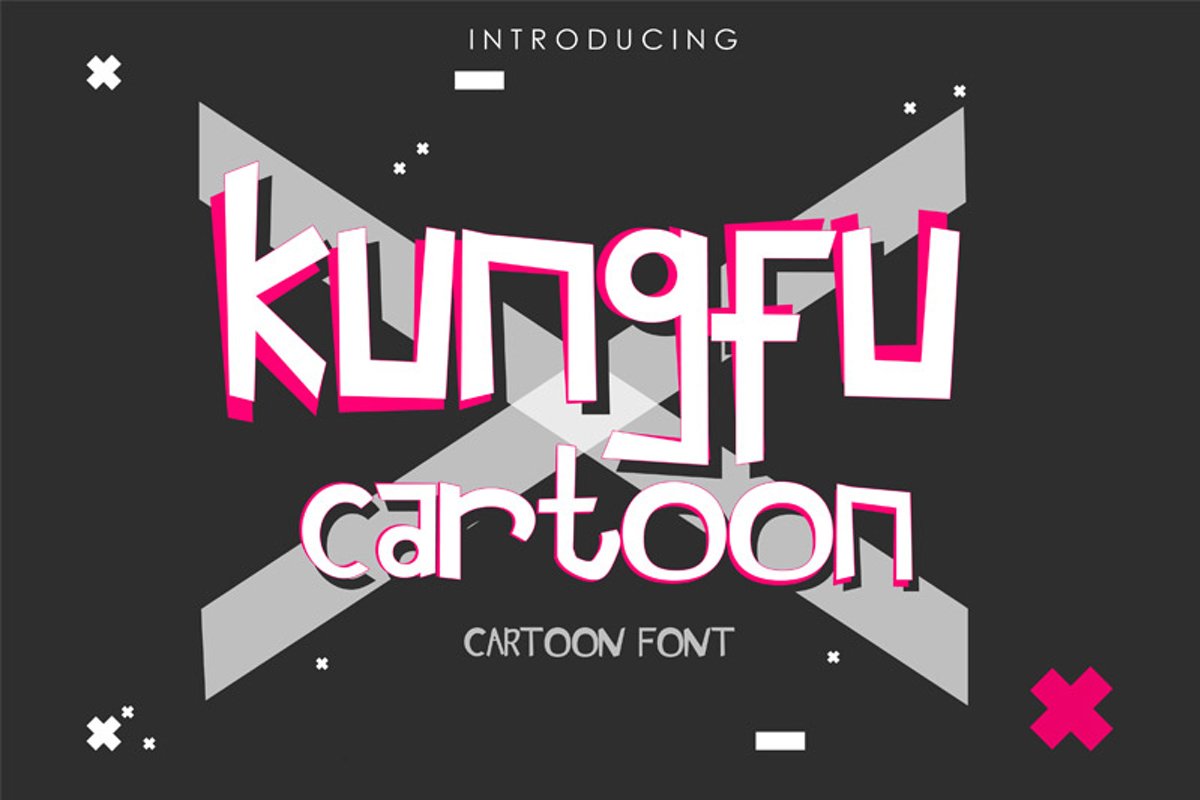
Kungfu cartoon
Kungfu Cartoon
Kungfu Cartoon is a playfully cute display font, perfect for turning any design idea into a true standout. Get inspired by its unique charm!